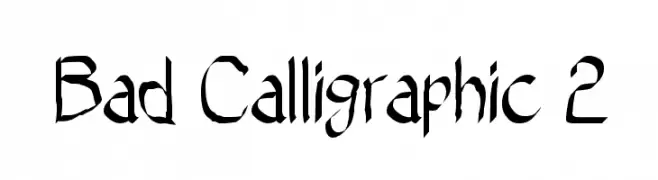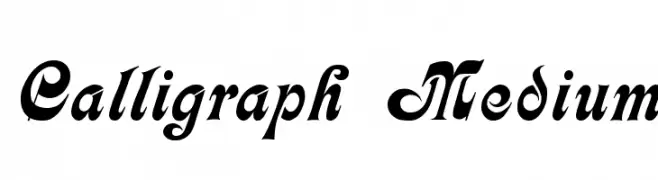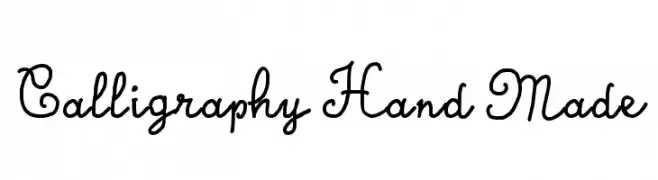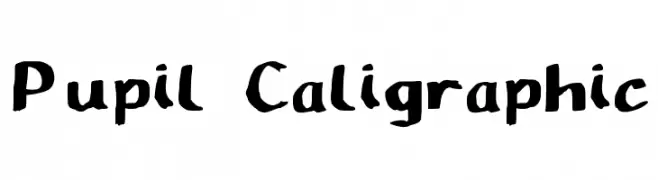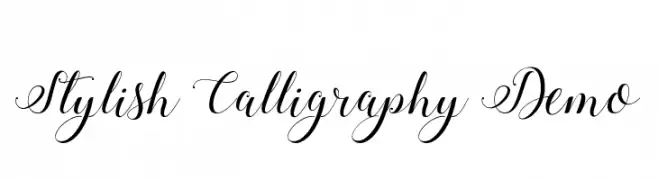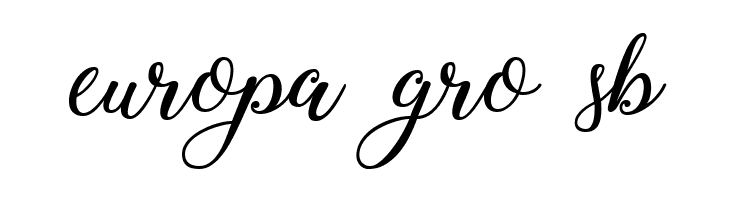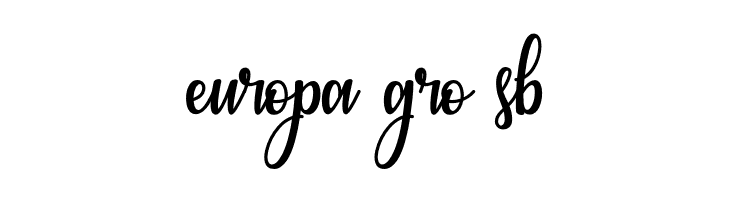
An ornate and elegant font inspired by traditional calligraphy, featuring bold, flowing curves and intricate details.
A fluid and expressive calligraphic font inspired by traditional Japanese brushwork.
A vintage, calligraphic font with a textured, ancient manuscript style.
A bold, distressed font with a vintage, industrial aesthetic.
An expressive, cursive font with fluid, interconnected strokes and a calligraphic style.
A dynamic, expressive handwritten font with varied stroke thickness.
A bold, italicized font with a distressed, grunge texture.
A playful, handwritten font with fluid, dynamic strokes and a casual style.
A pictographic font for woodwind tablature notation.
A decorative font featuring photographic images within each character.
A decorative series of stylized face graphics replacing traditional characters.
Decorative face-based font with exaggerated proportions.
A collection of softball-themed graphics and icons.
A graphic, poster-inspired decorative font made of illustrated character blocks.
A display font with each character as a detailed graphic illustration.
A set of decorative fire and flame vector icons.
A classic serif font with sharp serifs and a traditional, elegant style.
The image contains St. Patrick's Day-themed graphics, not a font.
Hand-drawn, sketch-style icon set with an informal, playful look.
Hand-drawn, sketch-style icon set with informal, playful lines.
An artistic, calligraphic font with swirling, dynamic lines and elaborate flourishes.
A bold, geometric font with sharp angles and a modern style.
A bold, hand-drawn font with a playful and energetic style.